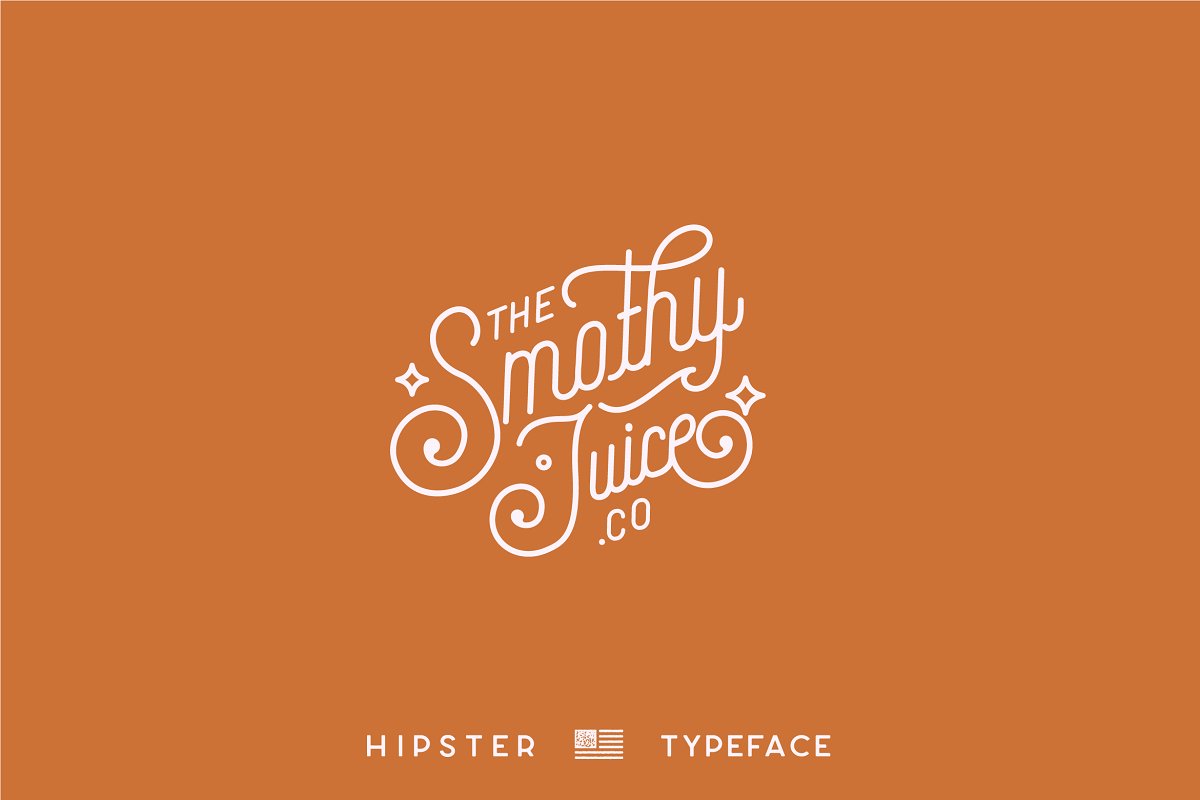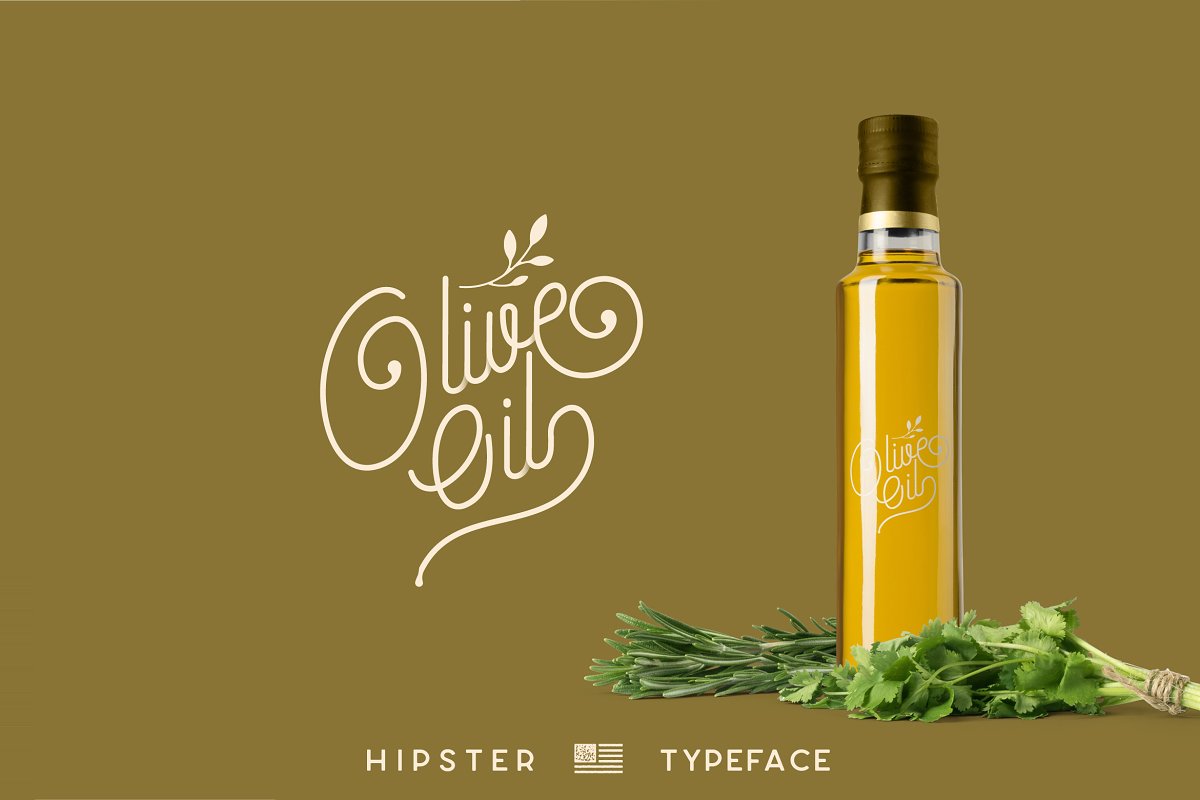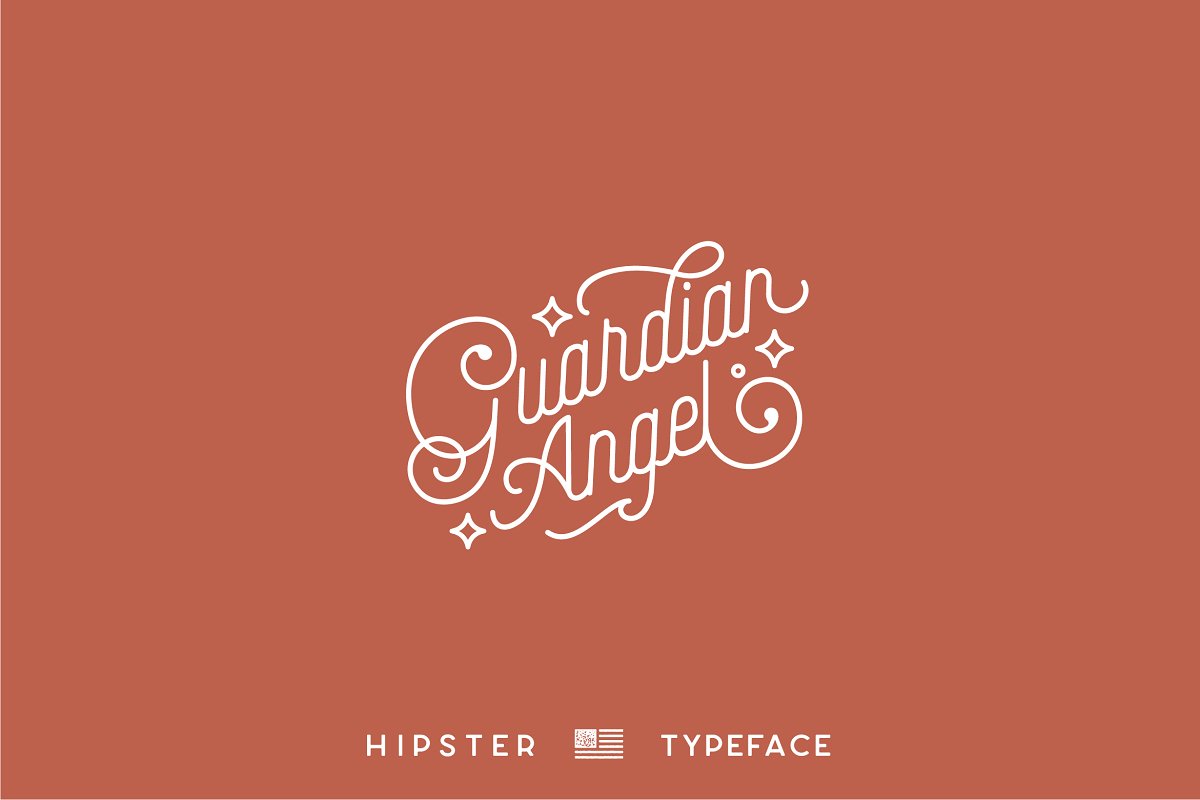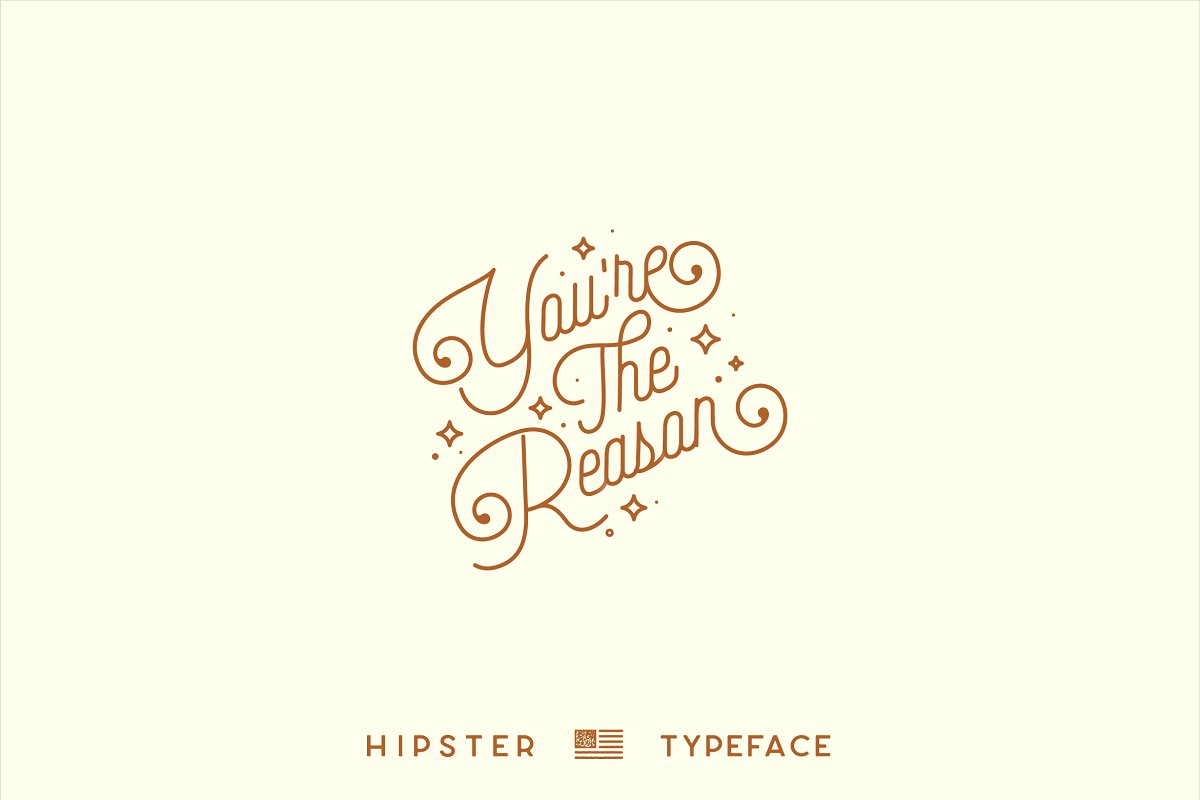
About the Hipster Style Stylish Duo Font
Hipster Script and Sans is an elegant vintage handcrafted font duo with a ton of beautiful alternates, Its a hand-made monoline script and pair sans serif, inspired from vintage and retro culture with modern touch, Perfect for branding projects, Logo design, Clothing Branding, product packaging, magazine headers, or simply as a stylish text overlay to any background image